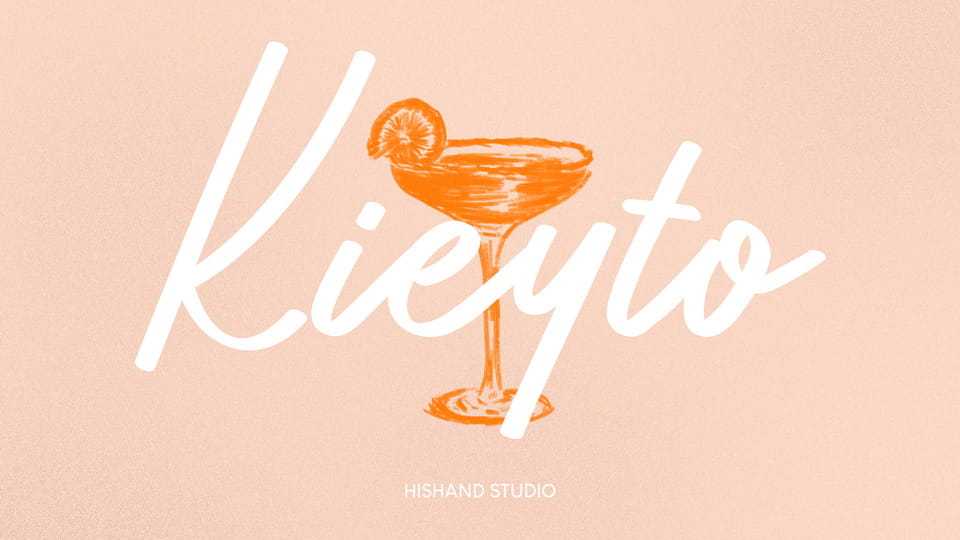
Kieyto Script Font › Fontesk – Download Grátis
Download Kieyto font, a handwritten script typeface with a relaxed, expressive style inspired by natural brush lettering. It features smooth flowing strokes, organic curves, and a casual rhythm.